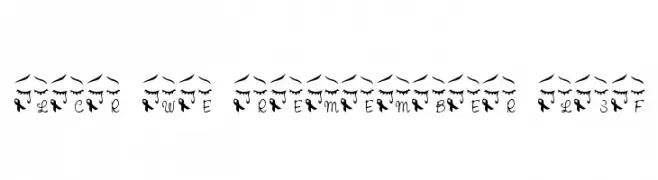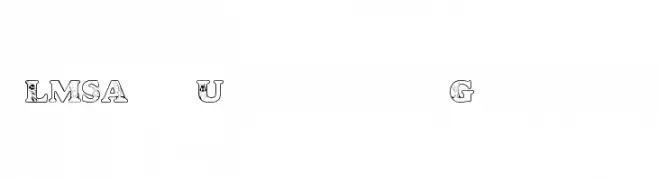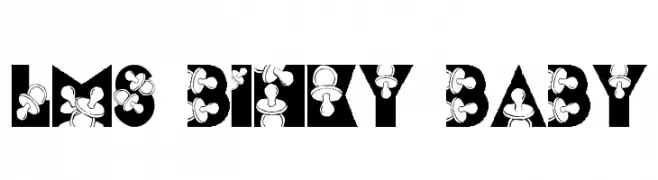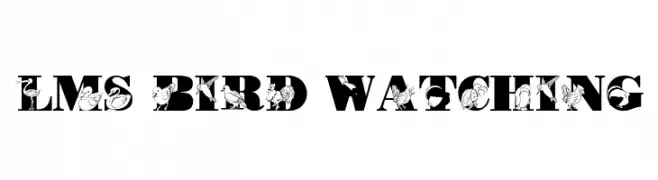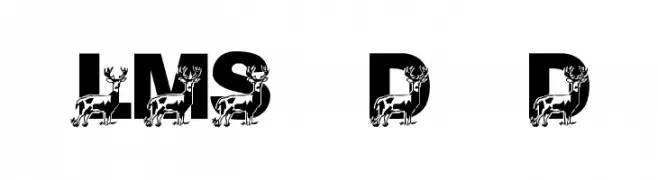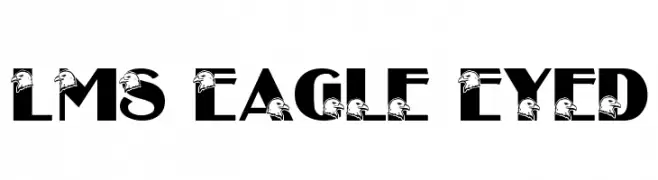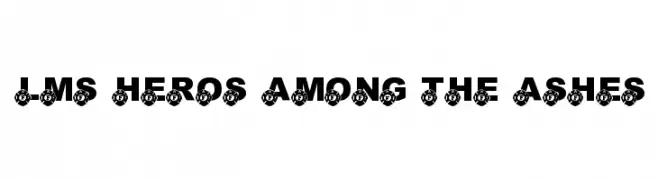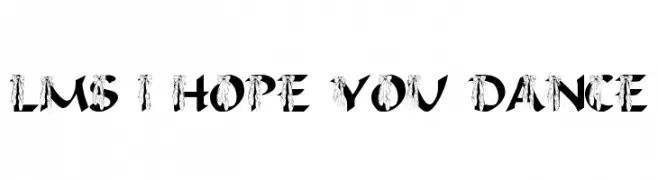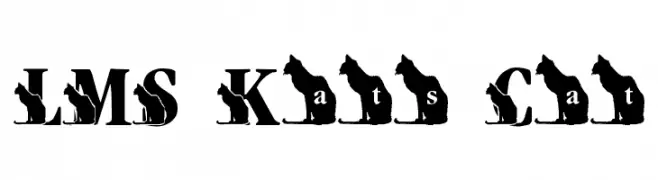
A decorative font featuring awareness ribbons integrated into each character.
A playful, decorative font featuring cartoon characters within bold serif letters.
A whimsical font featuring letters adorned with baby shoes, perfect for playful designs.
A playful font with bold letters featuring integrated pacifier motifs.
A bold, decorative font featuring bird illustrations within each character.
A bold, decorative font featuring integrated deer silhouettes for a rustic, eye-catching design.
A bold, decorative font featuring an eagle motif integrated into each letter.
A bold, decorative font featuring unique emblematic designs within each character.
A decorative and artistic font with intricate feather-like details.
A decorative font featuring cat silhouettes integrated into each letter.